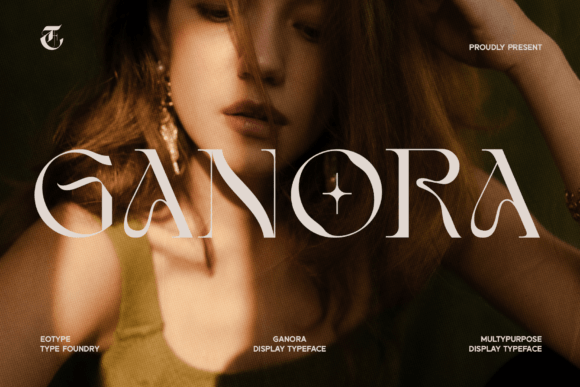
Ganora Font
Introducing Ganora Font, the ultimate display font that combines classic serif legibility with captivating modern curves. Step into a world of visual allure where your designs radiate with timeless elegance and contemporary flair.
Ganora's meticulously crafted characters dance across your screen, captivating your audience with their graceful curves and sharp angles. This font family is a symphony of aesthetics, perfectly suited for making a lasting impression in your display ads.
With Ganora, you'll elevate your creative projects to new heights. Its timeless appeal adds a touch of sophistication to any design, while its modern twist keeps your content fresh and engaging. Every letterform is a work of art, designed to enhance readability and draw the eye to your message.
Imagine the impact of your display ads with Ganora as your visual ambassador. Your words will command attention, your message will resonate, and your brand will shine. This font is not just a tool; it's a catalyst for capturing hearts and minds.
With Ganora, the possibilities are endless. Design eye-catching headlines that leap off the screen, craft compelling marketing materials that leave a lasting impression, or create social media posts that captivate your audience. Unleash your creativity and let Ganora be your guide to visual excellence.
So why settle for ordinary fonts when you can embrace the extraordinary? Choose Ganora, the font that transforms your words into works of art. Experience the beauty of classic serif legibility blended with the allure of modern curves. Make your mark on the world, one design at a time.